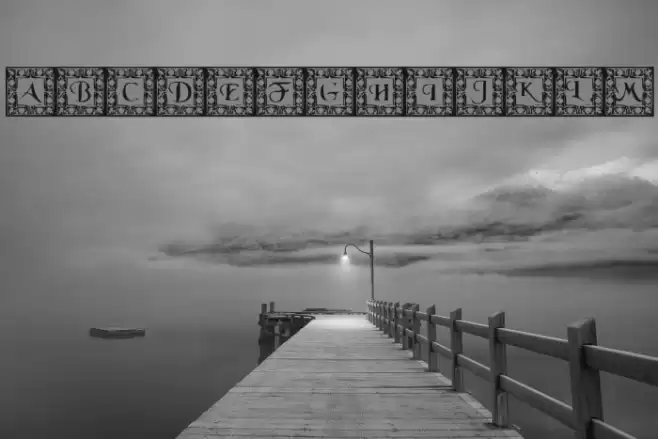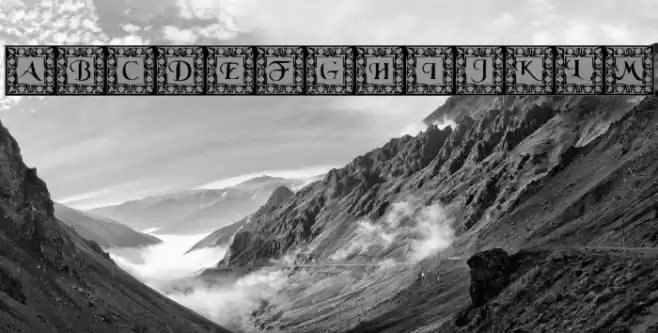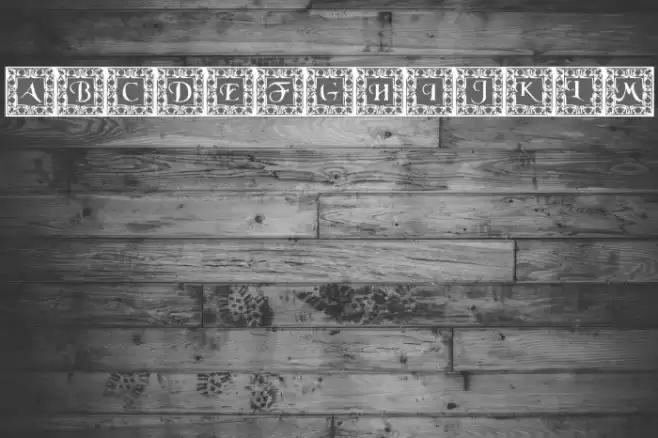
DLFillegreeCaps Font
DLFillegreeCaps Description
This font features an ornate and decorative style, with each letter encapsulated in a detailed filigree border. The uppercase letters are the primary focus, showcasing intricate patterns that give a sense of elegance and sophistication. The design is reminiscent of vintage or classical styles, making it suitable for projects that require a touch of luxury or historical flair. The characters are bold and stand out due to the elaborate borders, which are consistent across all letters. This font does not include lowercase letters or numbers, focusing solely on the uppercase alphabet.
An ornate, decorative font with uppercase letters in detailed filigree borders from Crazy fonts.
- Proposed Projects: Ideal for wedding invitations, luxury branding, vintage-themed posters, and decorative headings.
- Contrast: High
- Overall Style: Vintage